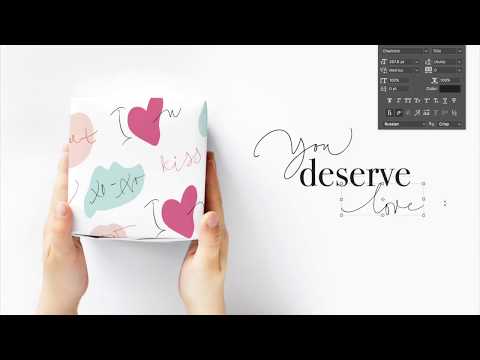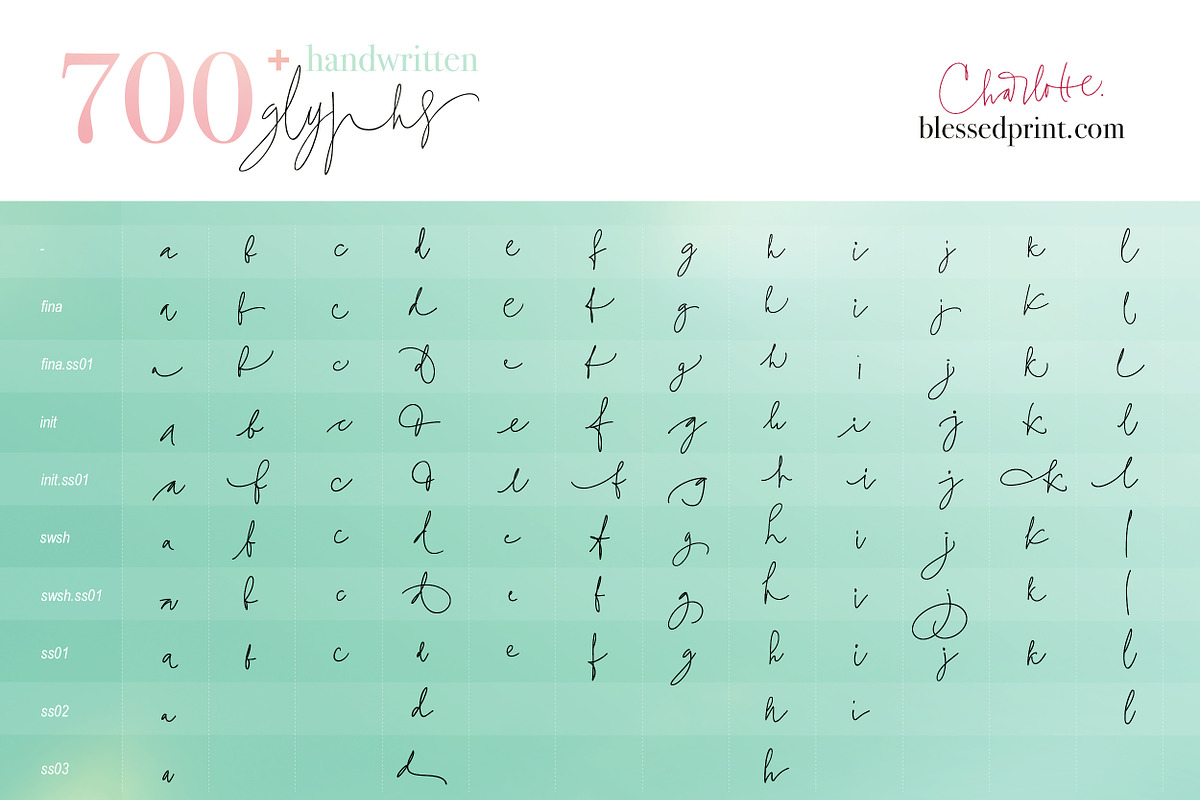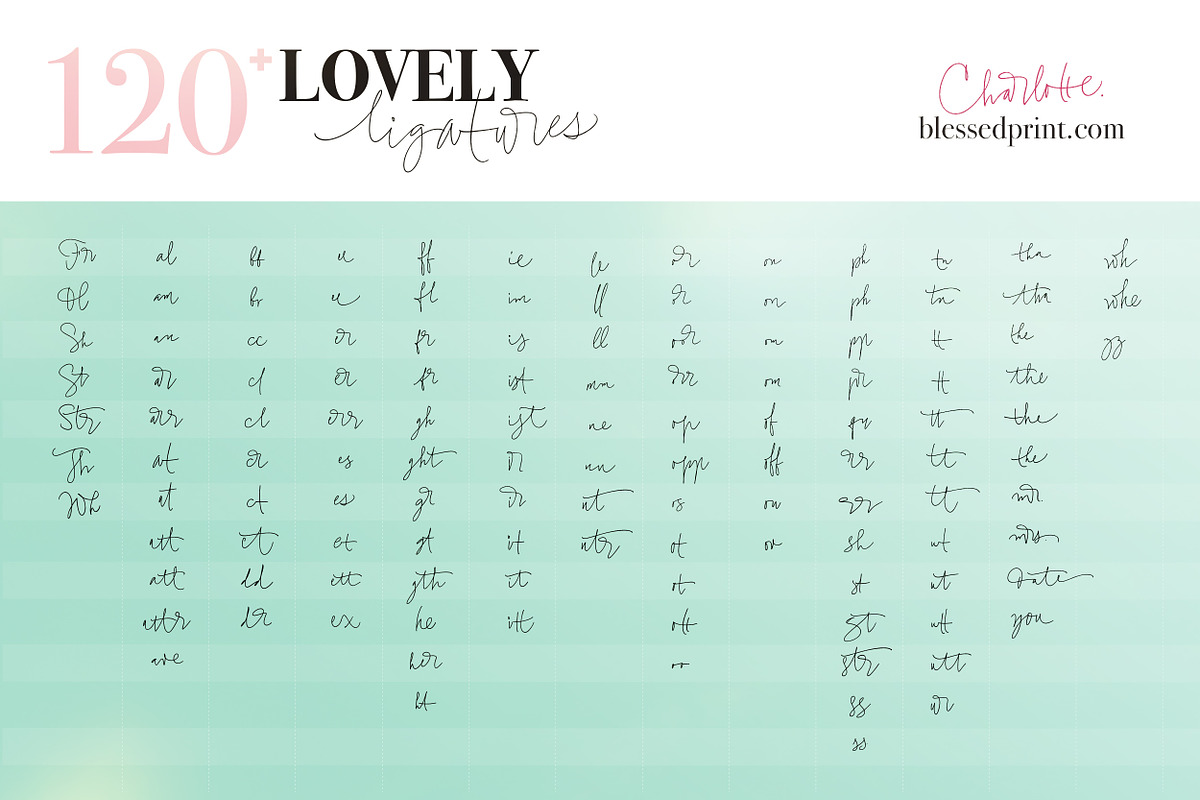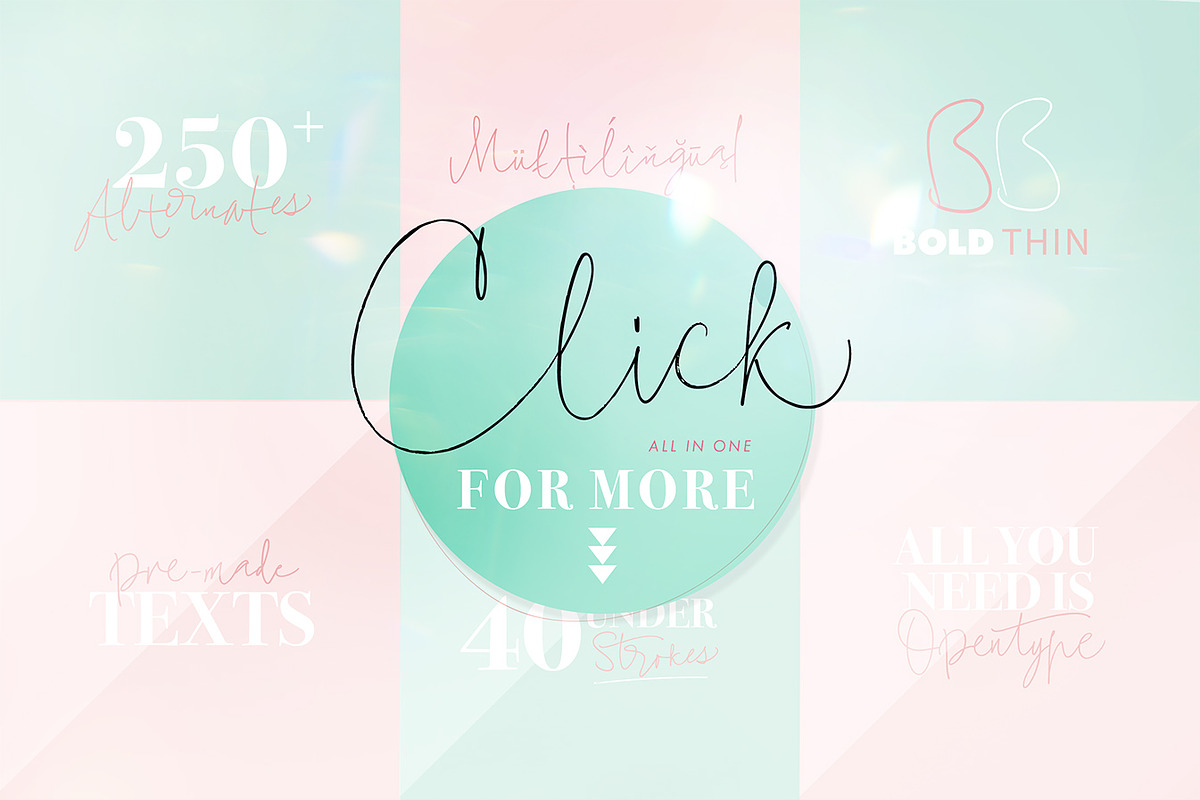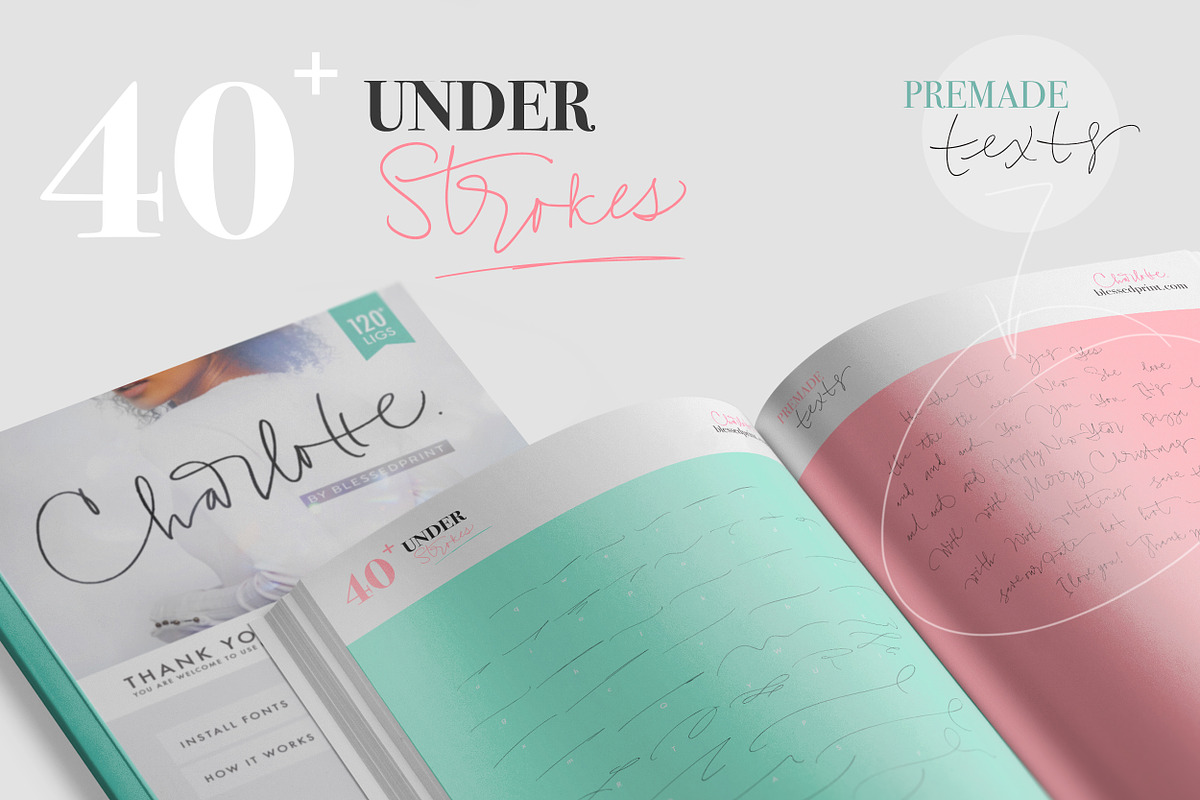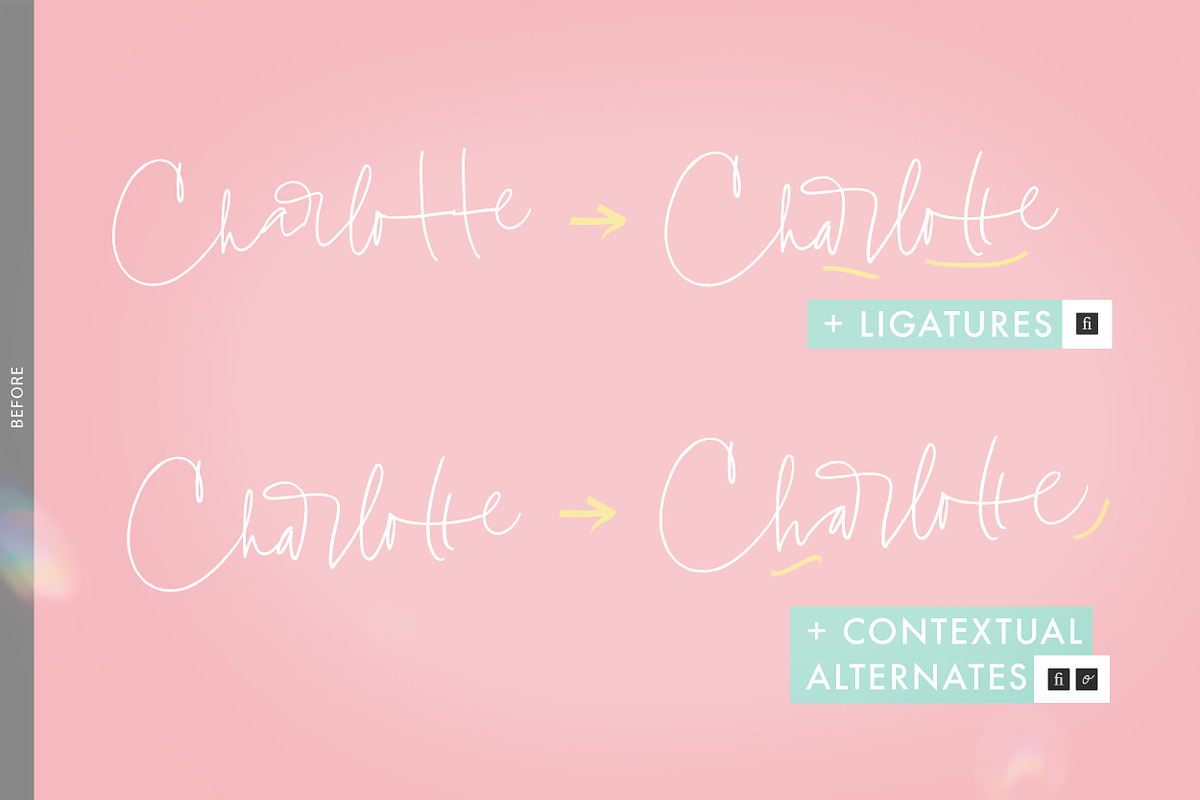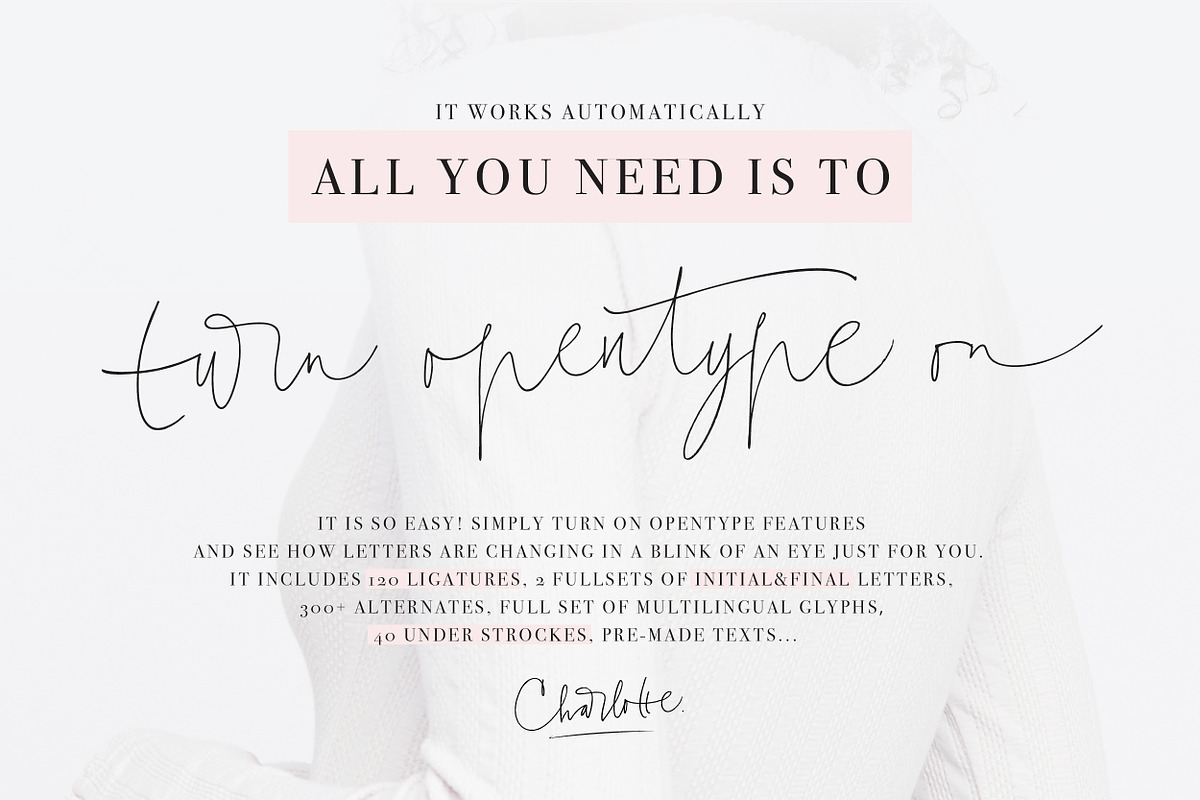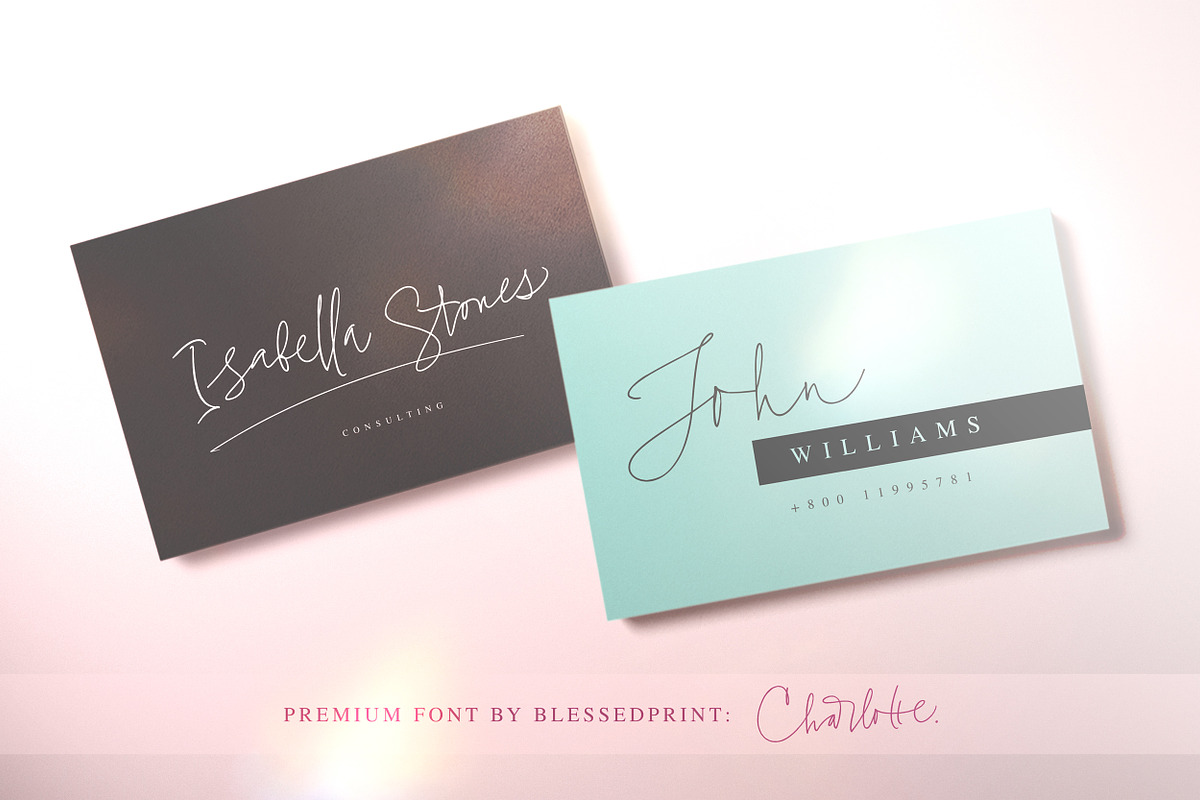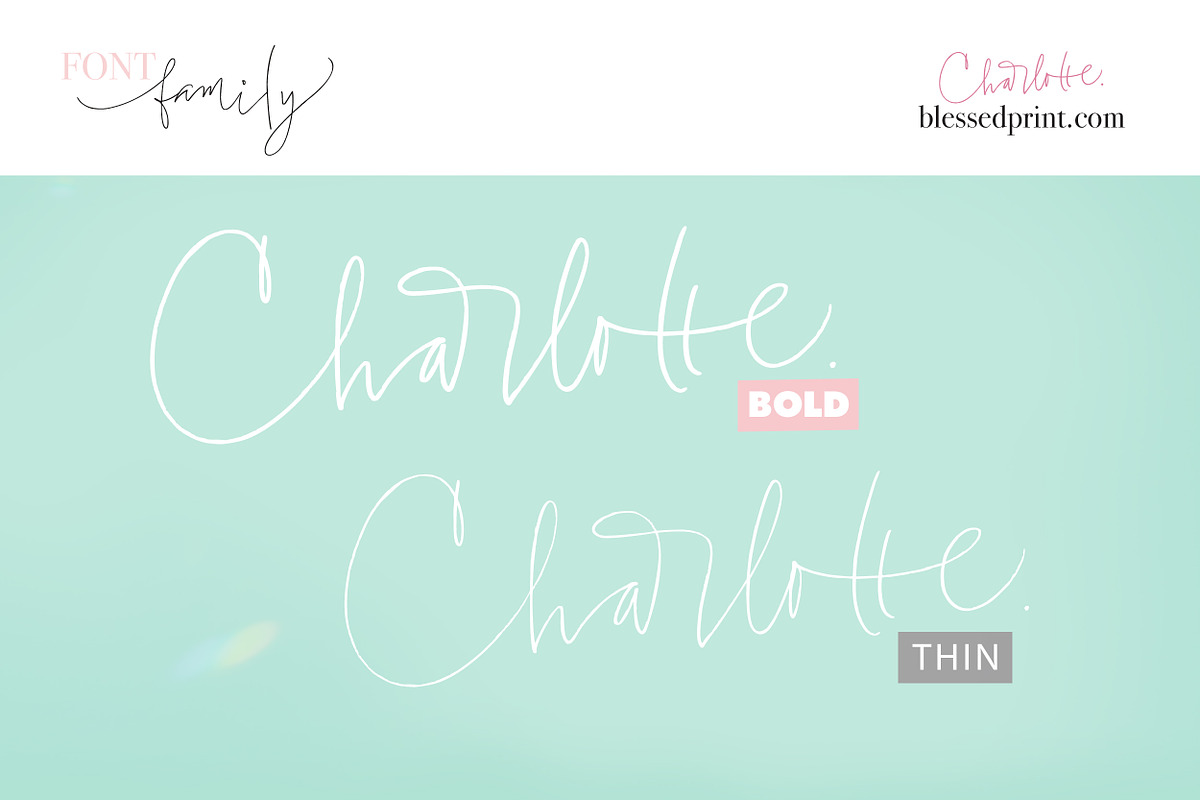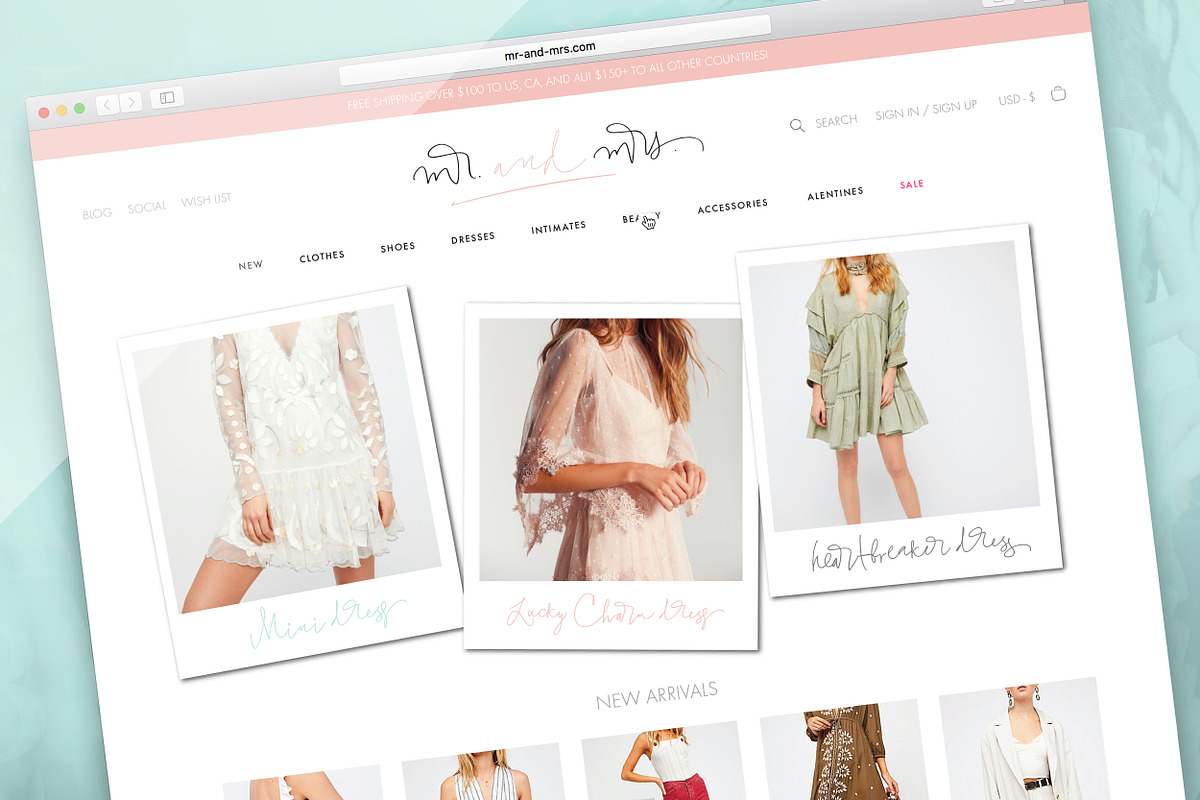
Charlotte Script with 120 ligatures
Charlotte script - new elegant, chic, contemporary handwritten font with more than 120 ligatures ready to add unique and blossom appearance to your designs. Bold and Thin versions with more then 40 under stroke swashes! It is perfect for wedding designs, social media, blogging and much more. Have fun!
700+ ALTERNATES and OPENTYPE features
💕 Each letter has at least 8 alternate options on your choice. Adobe users have access to each of it from Opentype panel and Glyphs panel. Simply use these Opentype combinations:
Stylistic Alternates: substitutes any letter, number to alternated one
Contextual Alternate: Automatically updates all first&last letters and adds unique complete appearance for any word. Imitates real calligrapher style when last letter is always a bit different from others.
Standard ligatures: Charlotte script includes 120+ alternates: Fr Ol Sh St Str Th Wh Al am an ar arr at-1 at-2 att att-2 ave bb br cc cl cl-2 cr ct ct-2 date dd dr ee ee-2 er er err es es-2 et ett ex ff fl fr fr gh ght gr gt gth ge her ht ie im ir ir is ist ist-2 it it-2 itt le ll ll-2 mm mr. mrs. ne nn nt ntr of off om om-2 on on-2 oo oor op opp or or-2 orr os ot ot-2 ott on ov ph pp pr qu rr rr-2 sh ss ss-2 st st str tha the the-2 the-3 the-3 tn tn-2 tt-1 tt-2 tt-3 tt-4 tt-5 ur ut-1 ut -2 utt-1 utt-2 wh-1 wh-2 whe whe-2 you zz
And much more opentype combinations: Ligatures + Alternates, Swashes + Alternates, Contextual alternates + Stylistic alternates. Open Help.pdf file for more clarifications. Opentype features are very handy if you use previous Photoshop versions which do not support Glyphs panel.
Charlotte Thin: Full set 700+ glyphs with all alternates, multilingual glyphs, alternates and integrated opentype features. Thin version.
Charlotte Bold: Same amount of glyphs and options. The only difference is that this is bold version.
Charlotte Swashes: 40+ under stroke swashes ready to add completed appearance for any composition. Character map is included.
Charlotte Thin Alternates: Alternate version for those users who prefer add alternates from different font. Also includes multilingual character, ligatures.
Charlotte Bold Alternates: Same as above, just bold version.
Charlotte Ligatures Thin One: All ligatures from Charlotte thin are placed into handy font. Open character map which is also included and simply type any letter to get required ligature. This option is handy for some applications that do not support opentype features.
Charlotte Ligatures Thin Two: Continuous of version one.
Charlotte Ligatures Bold One: Bold version of ligatures.
Charlotte Ligatures Bold Two: Continuous of above.